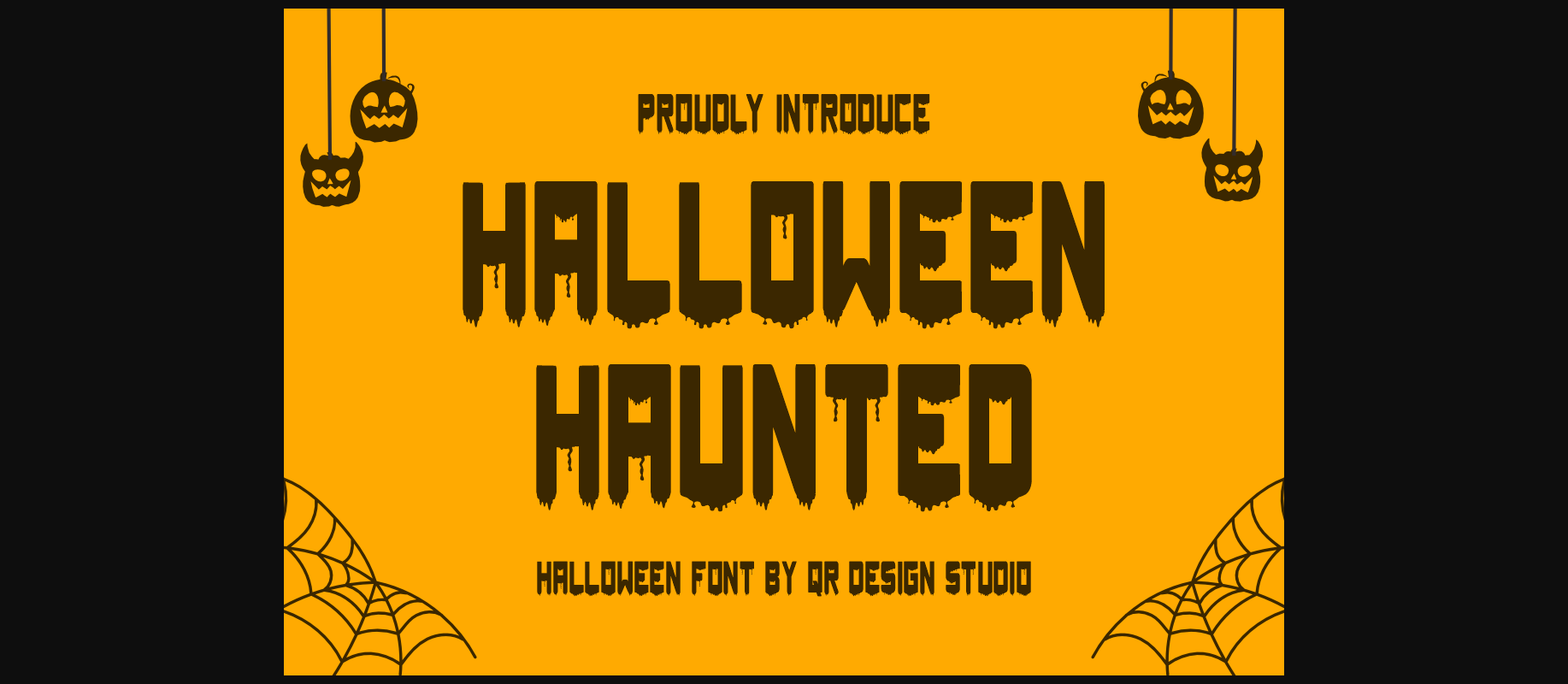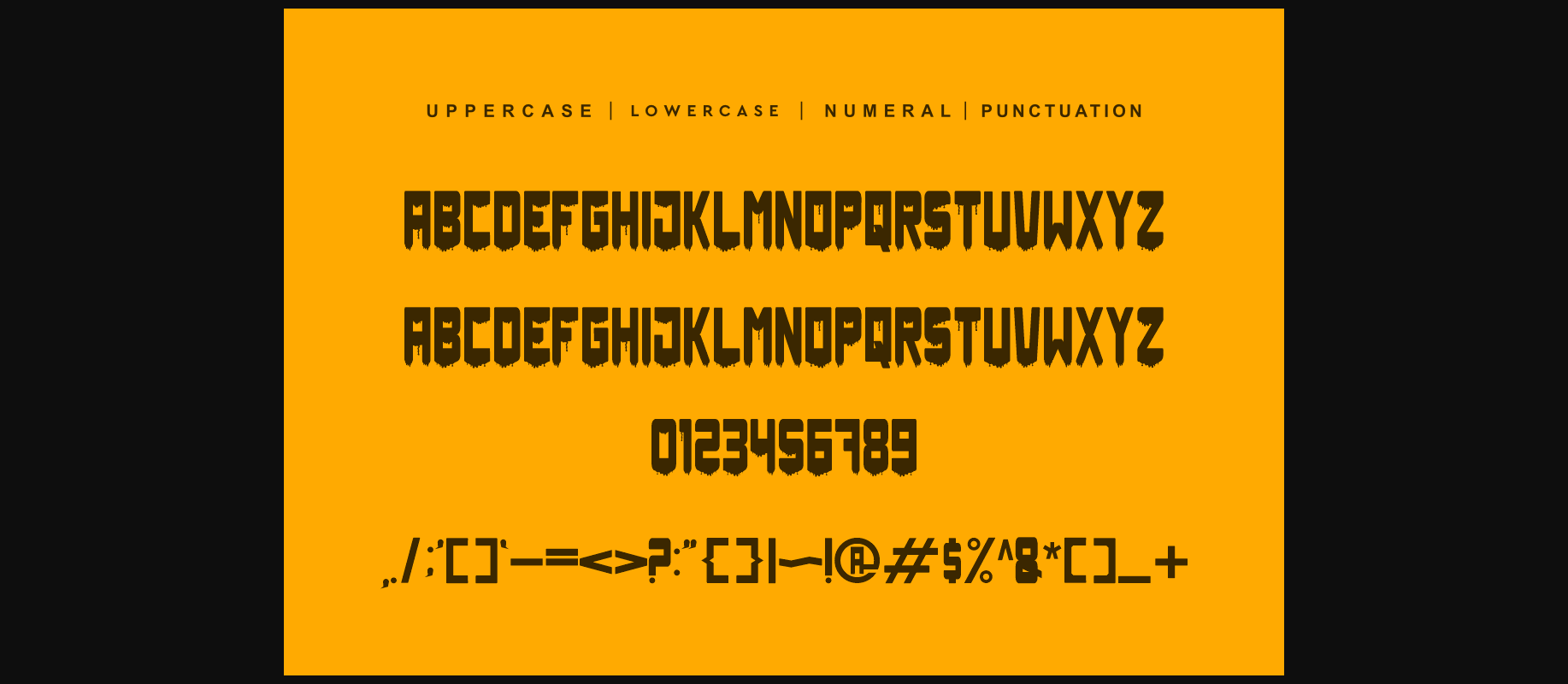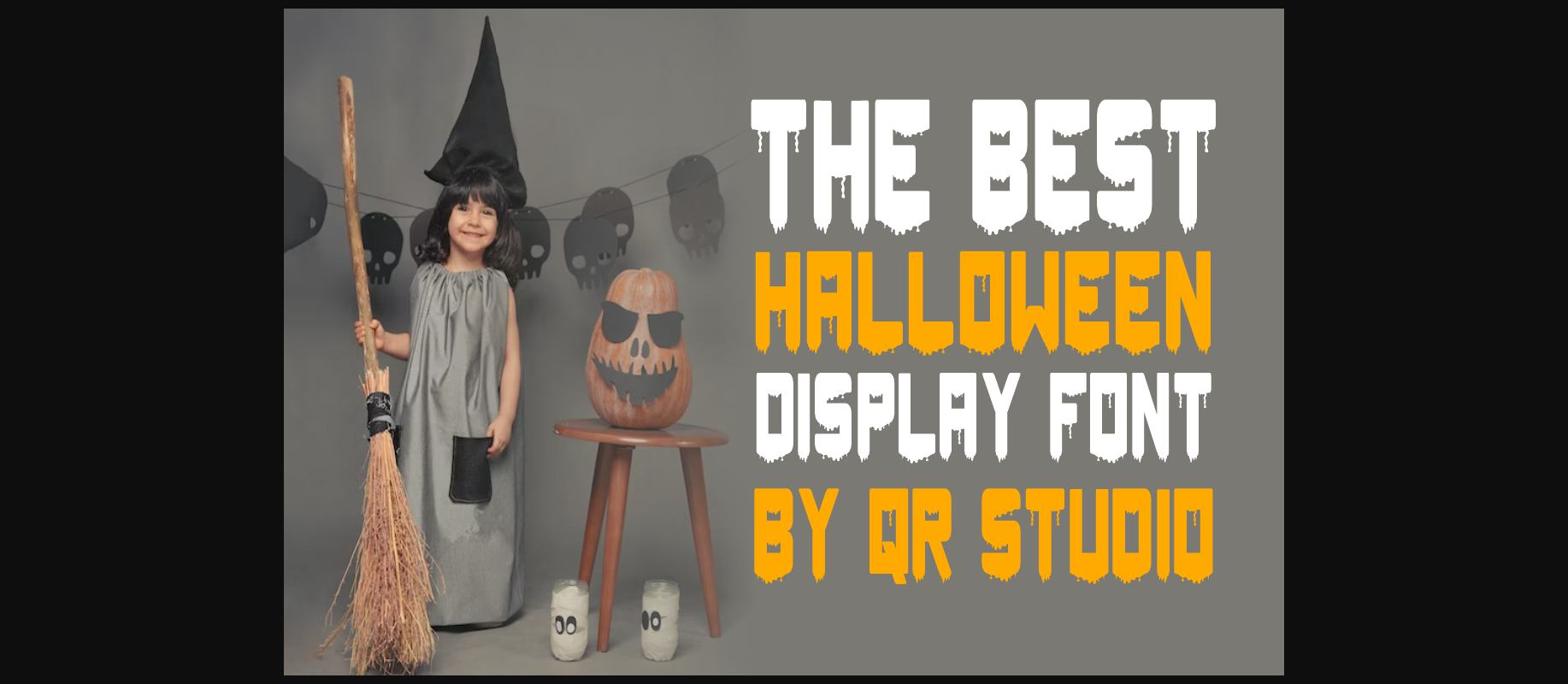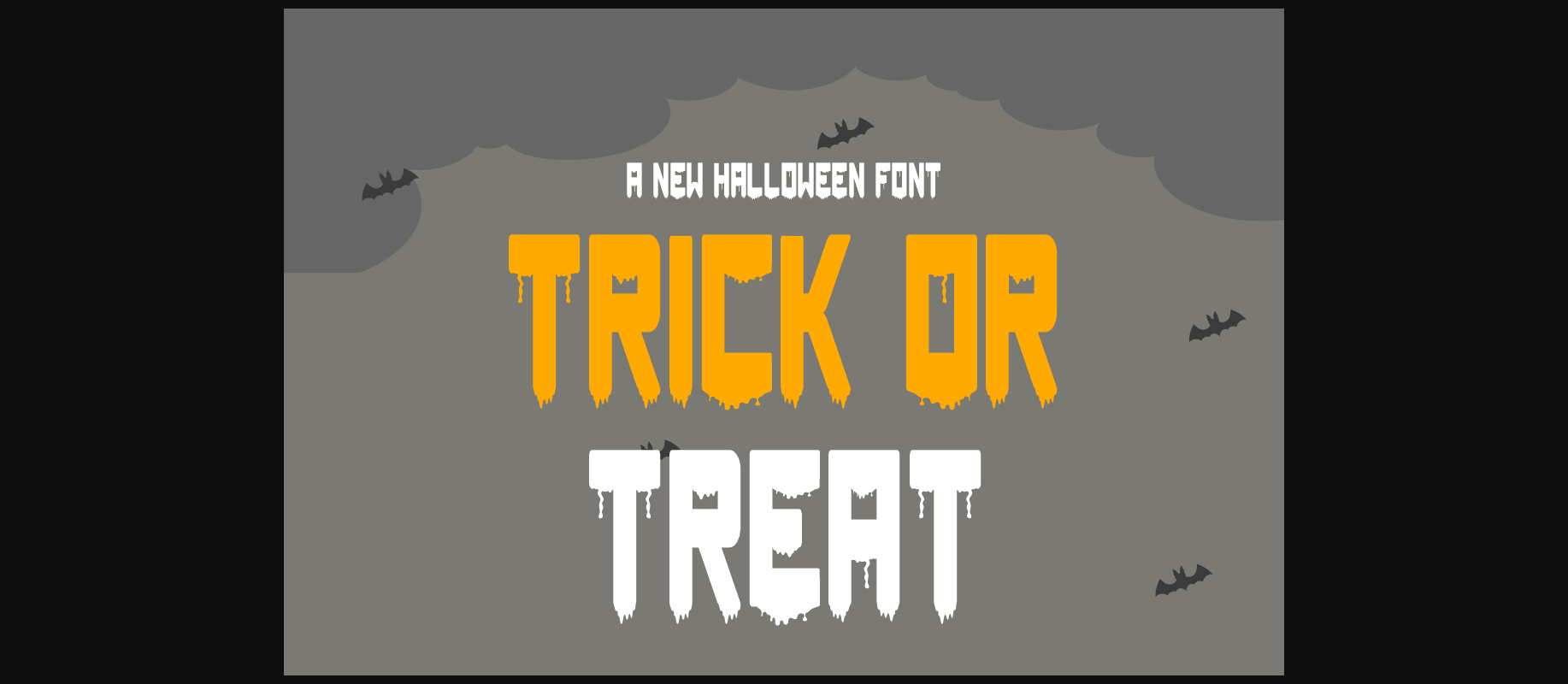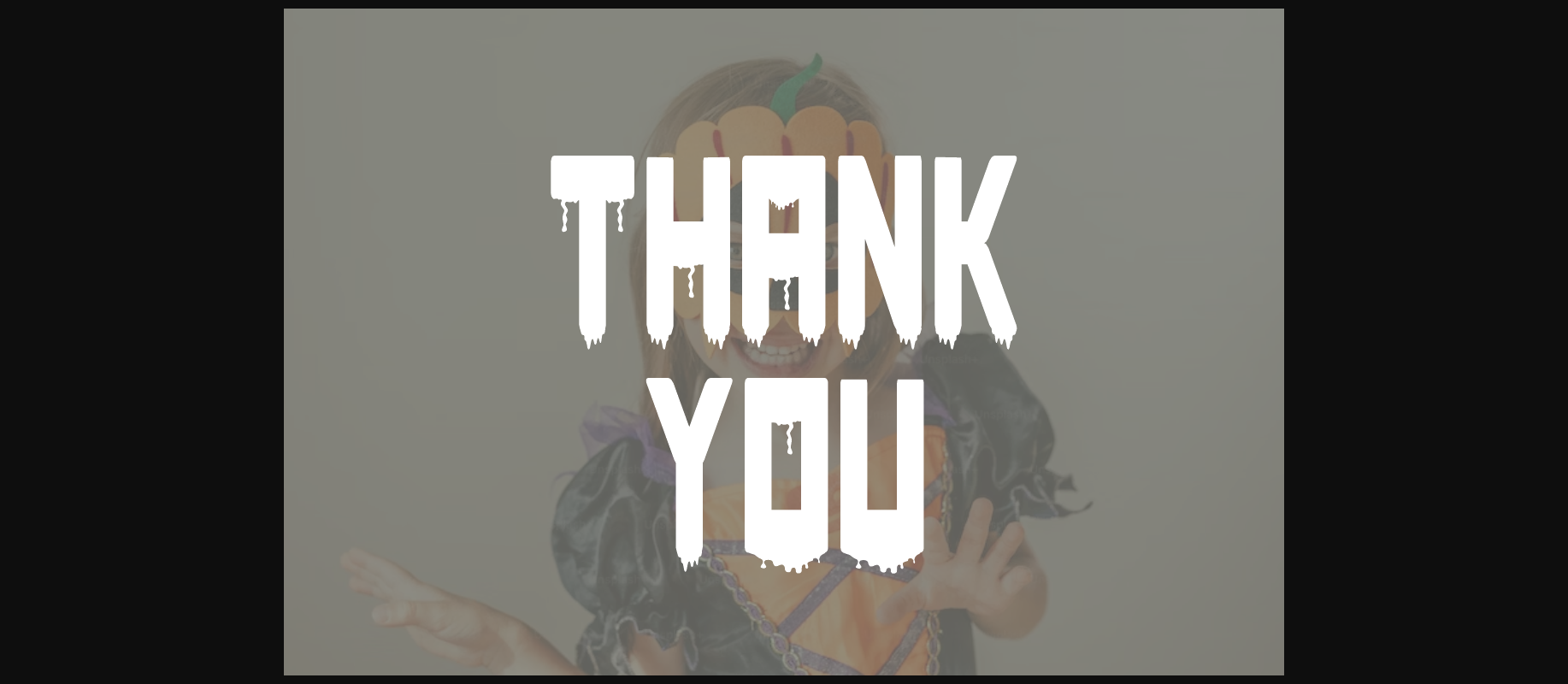
Halloween Haunted Font
About Halloween Haunted Font
Halloween Haunted is a gorgeous and bold decorative font, crafted to give your headlines and logotype projects a stylish touch. This font reads as strong, confident, and dynamic and can add tons of nostalgic character to your designs.